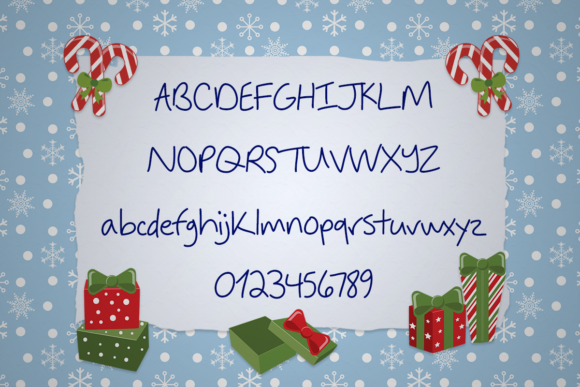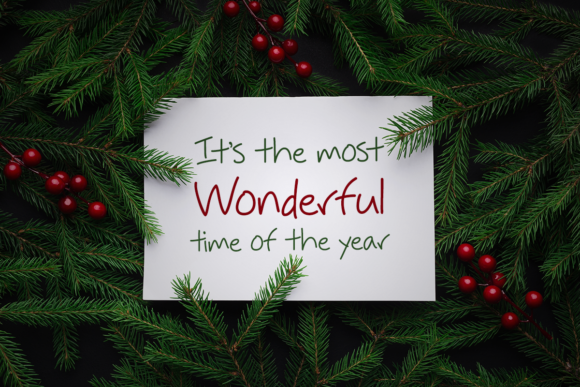
Bright Azure Font
db-ku.com - Script & Handwritten -- Bright Azure is a whimsical typeface that will create the best look for your projects. Let its cheerful simplicity inspire your designs this Holiday season, as well as all year round!